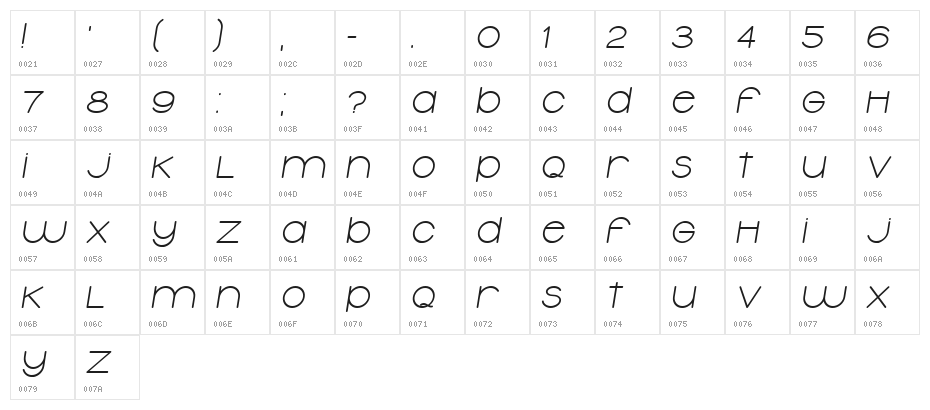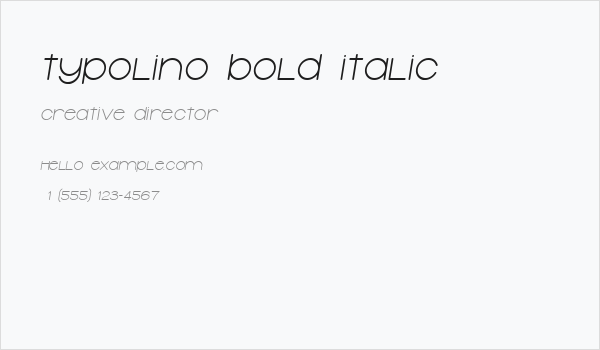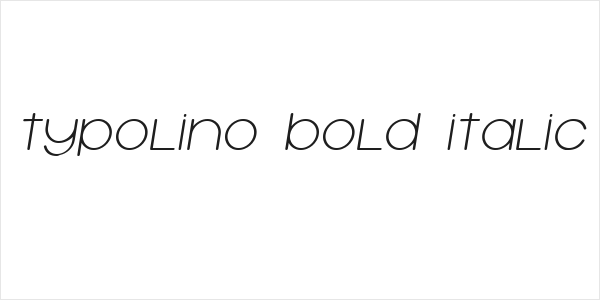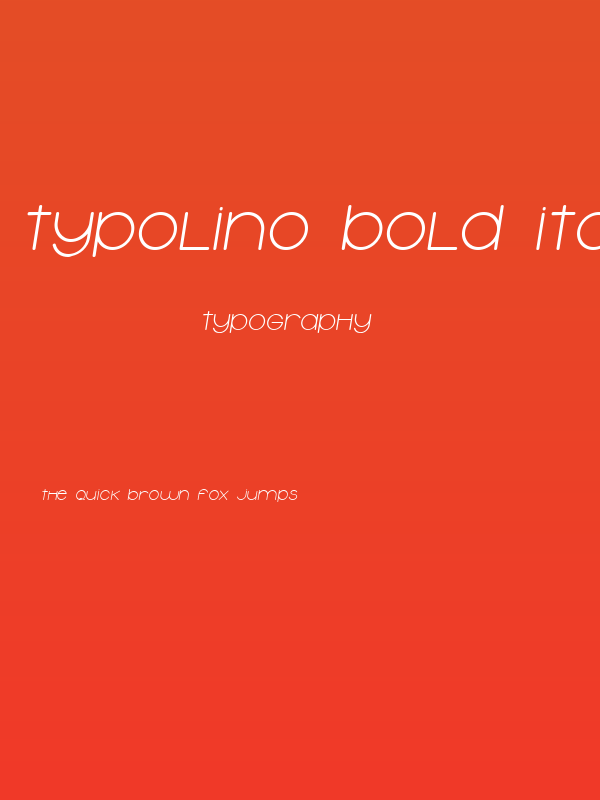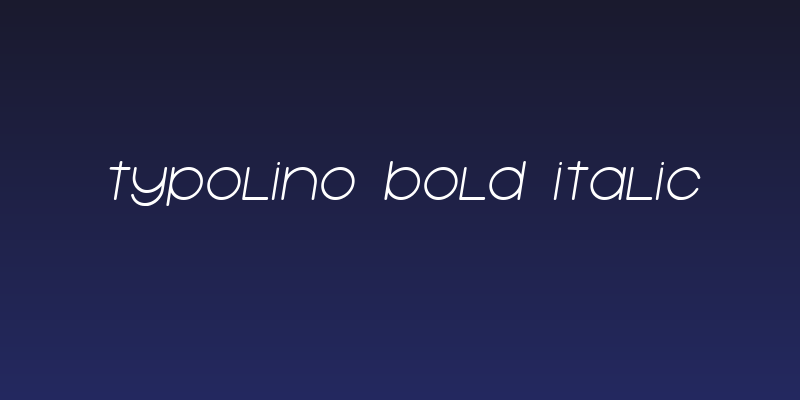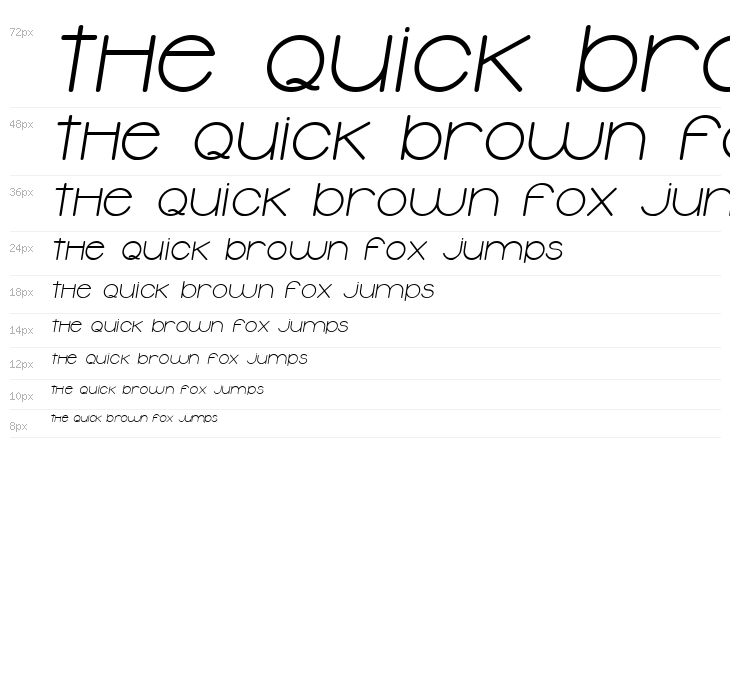
Typolino Bold Italic Font
Typolino Bold Italic Description
This font exhibits a modern and sleek design with a distinct italic slant, giving it a dynamic and flowing appearance. The characters are crafted with smooth curves and a consistent stroke width, creating a harmonious and balanced look. The uppercase and lowercase letters maintain a uniform style, while the numerals and special characters integrate seamlessly into the overall design. The font's clean lines and contemporary aesthetic make it suitable for a variety of applications, from digital media to print.
| Use Case | Logos, Headlines, Digital Media |
| Proposed Projects | Ideal for branding, advertising, digital content, and modern print materials. |